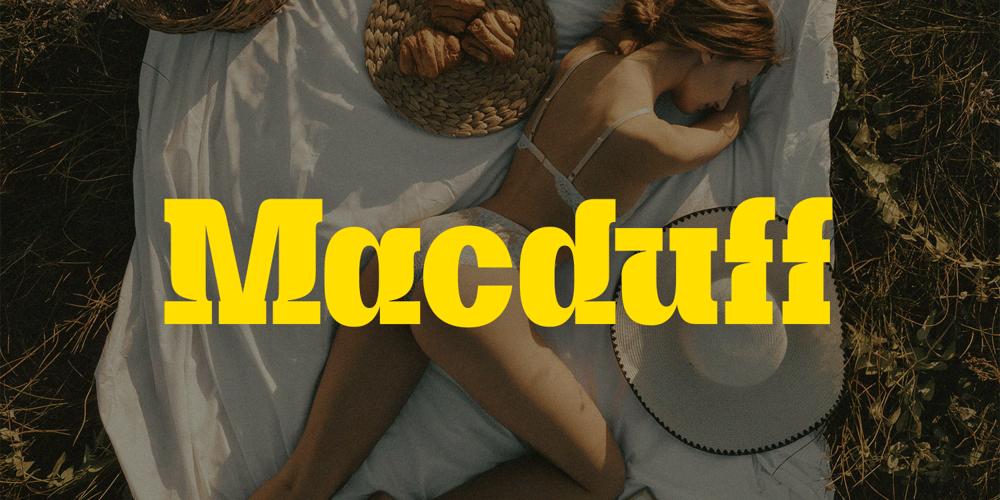
Macduff Typeface
Macduff Typeface Font Family was designed by Evin Tony and published by FoxType. Macduff Typeface contains 1 styles and family package options. Macduff Display is a meticulously crafted font, designed to make a bold statement in your creative projects. Ideal for posters, magazine covers, headlines, Logo, Branding and more, this font brings a modern and dynamic touch to any design.Key Features: Neat and Precise: Each character is carefully designed to ensure clarity and visual appeal. Versatile Usage: Perfect for creating eye-catching posters, striking magazine covers, and attention-grabbing headlines.